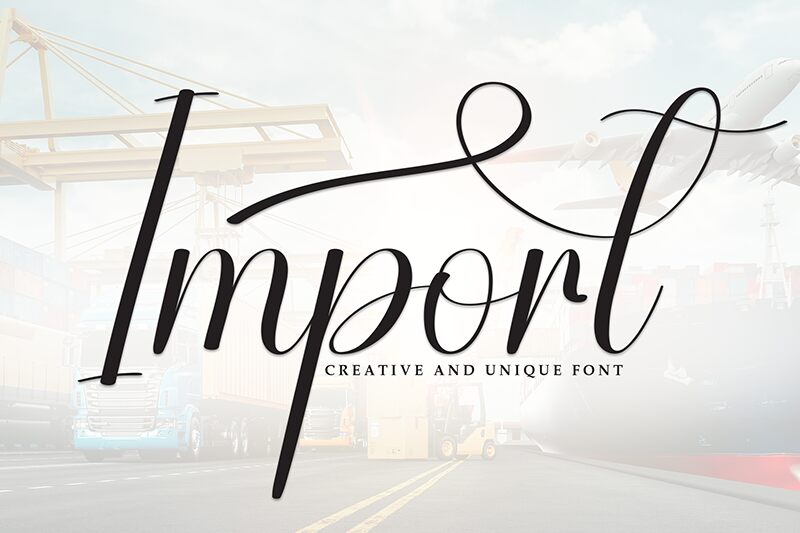
Import
Import font by Andi Moz is an elegant calligraphy font featuring flowing characters and a condensed look. The designer’s take on the cursive script combines a sophisticated appearance that gives off a traditional vibe. It's light and artistic, with balanced expressive lines born in the mindset of long and careful planning.
This free calligraphy typeface set will work for multiple project types such as beauty logos, newspaper titles, posters, packaging designs, digital book covers, etc. Titles in magazines and websites, start screens of video games or apps can also benefit from the uniqueness of this font.